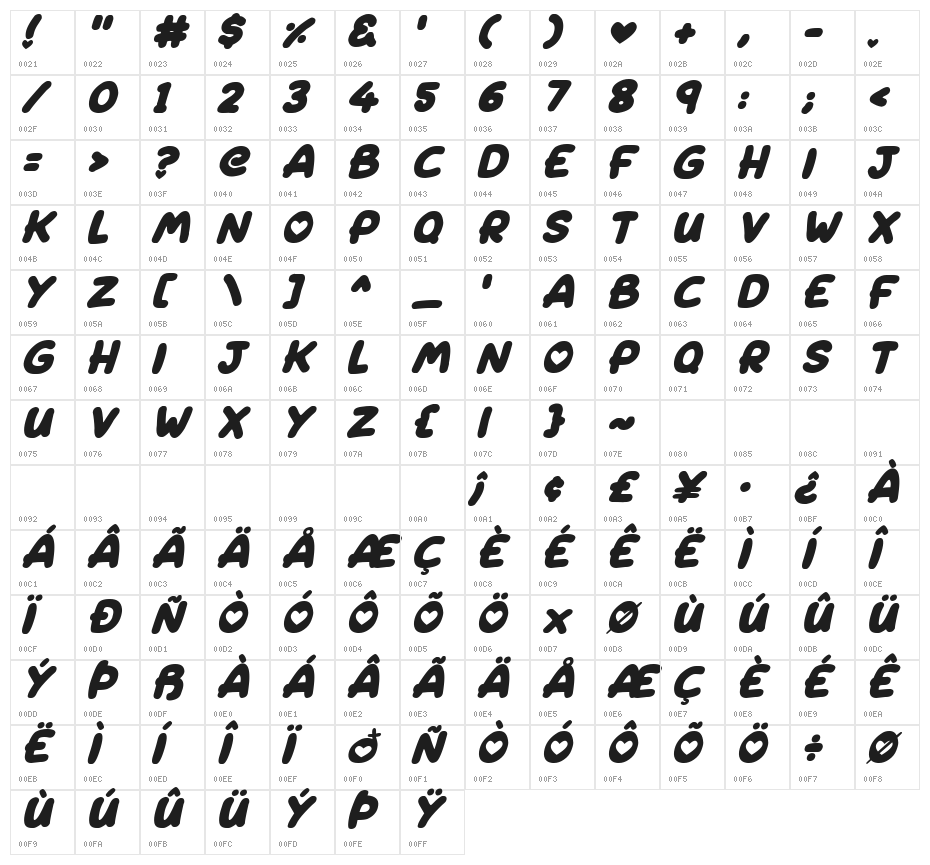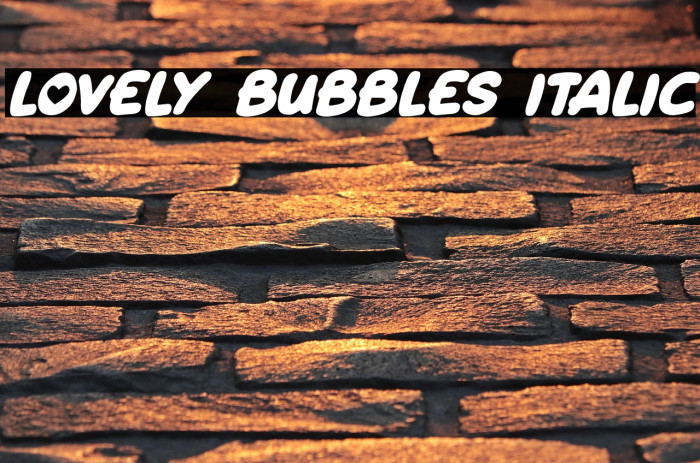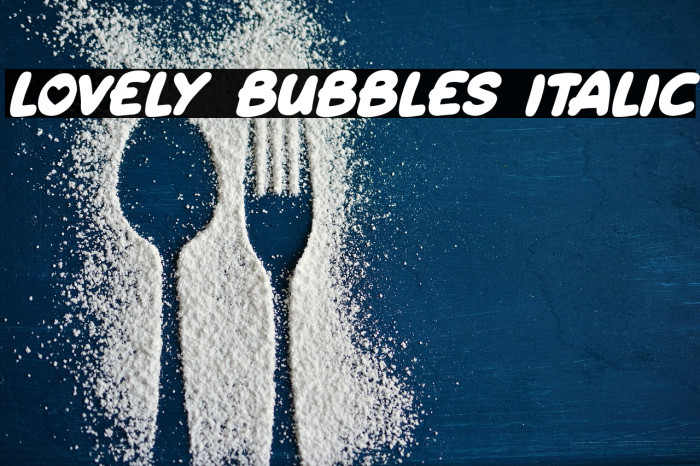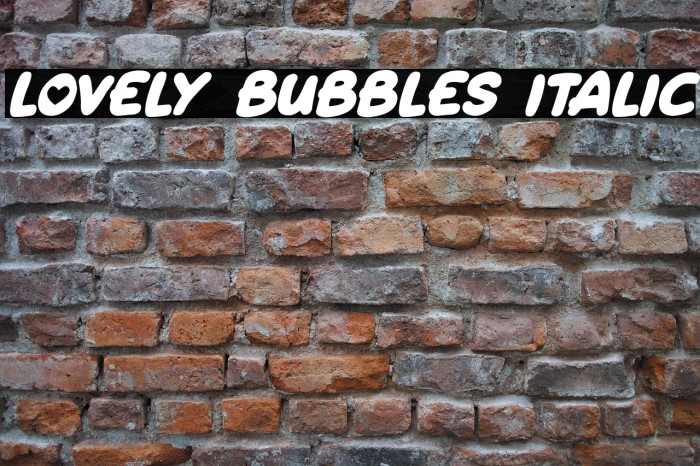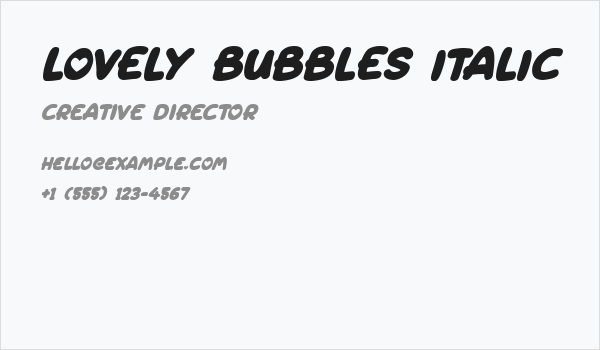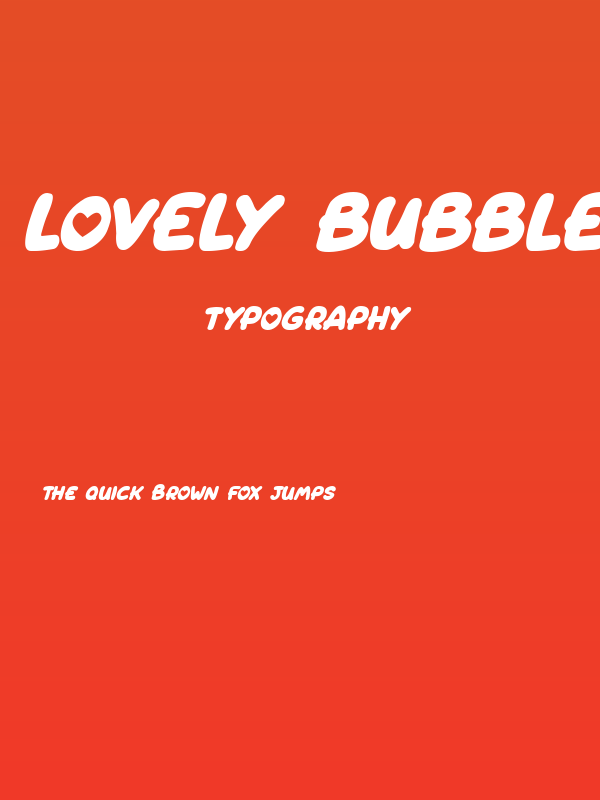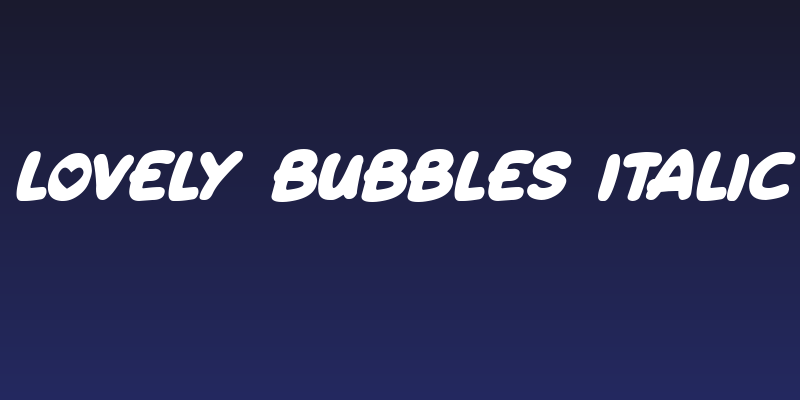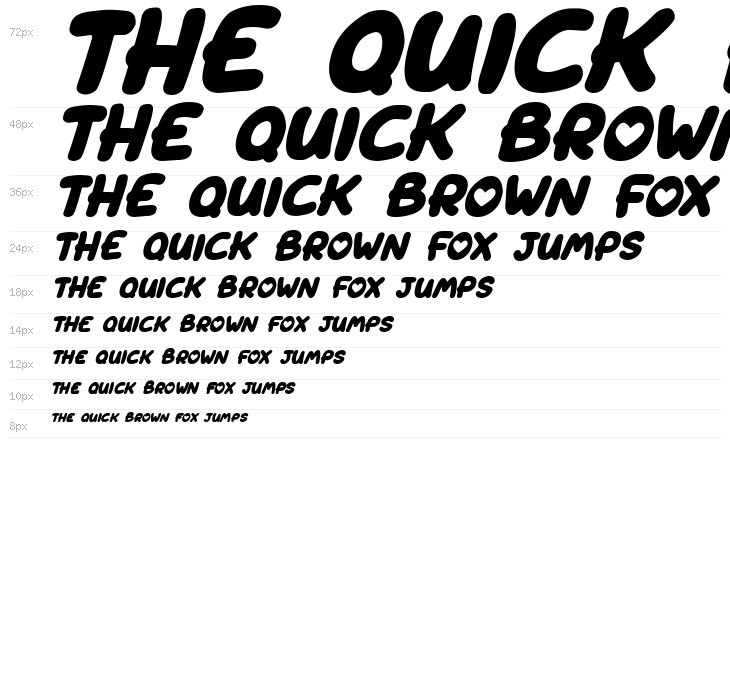
Lovely Bubbles Italic Font
Lovely Bubbles Italic Description
This playful and bubbly font features rounded, bold characters with a smooth, flowing style. The letters are slightly slanted, giving an italicized appearance that enhances its casual and friendly vibe. The strokes are thick and consistent, providing a uniform look across all characters. The font includes both uppercase and lowercase letters, numbers, and a variety of special characters. Its whimsical nature makes it ideal for projects that require a fun and approachable aesthetic.
| Proposed Projects | Perfect for children's books, playful branding, party invitations, and casual social media graphics. |